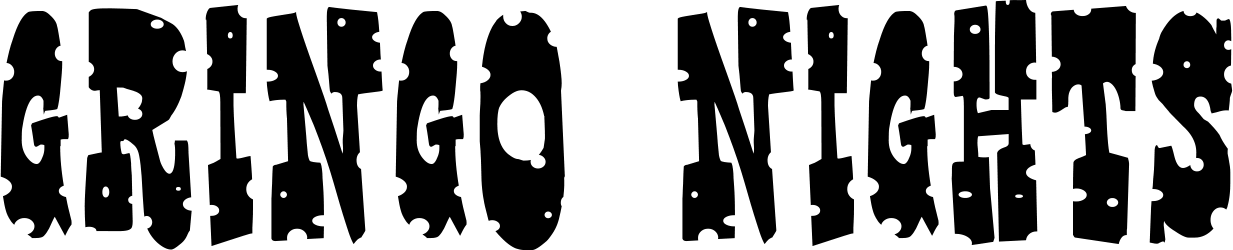
Gringo Nights Font
Designed byPizzadude
Gringo Nights is a Mexican font that does not support lowercase letters. A series of white dots are used in the design of Gringo Nights characters, which increases the visual appeal of the font. By using this font in producing content for children and adolescents, such as designing posters and brochures for video games, you can convey a sense of excitement and freshness.